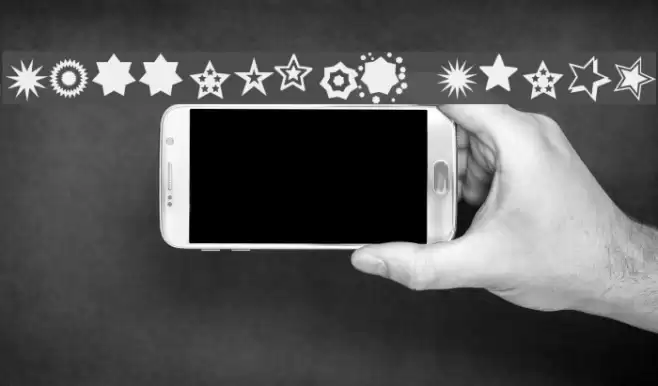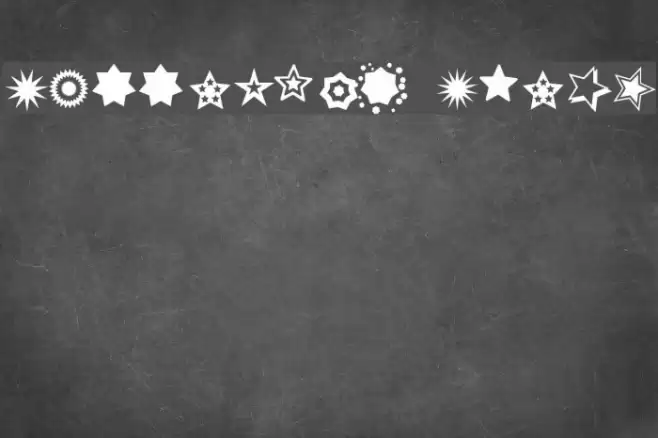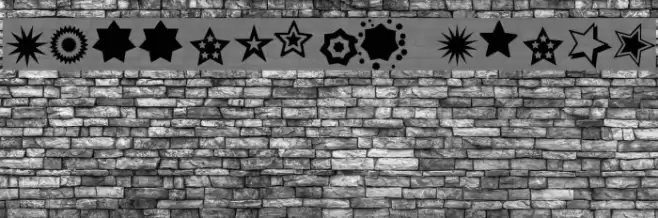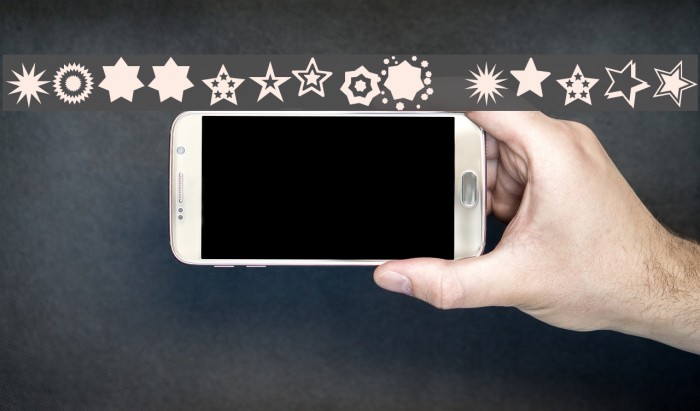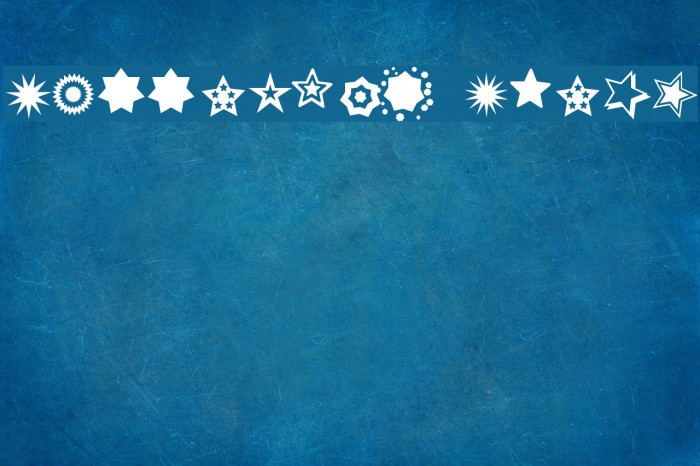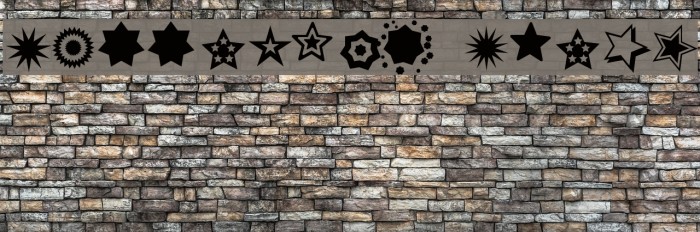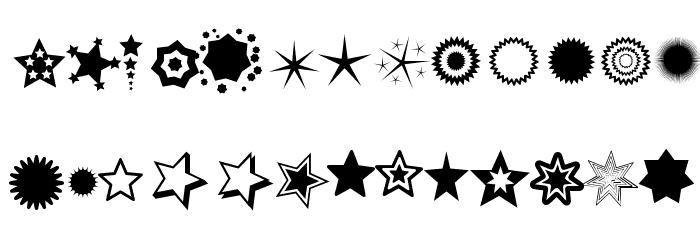
PizzaDude Stars Font
PizzaDude Stars Description
A decorative dingbat font featuring a wide variety of star shapes, including solid, outlined, spiked, and stylized stars with different effects such as bursts, dots, and geometric patterns.
A playful decorative font with diverse star-themed glyphs from Dingbats fonts.
- Proposed Projects: Party invitations, children's materials, posters, scrapbooking, celebratory graphics, decorative borders.
- Overall Style: Decorative, Playful
- Use Case: Icons, Borders, Decorative elements